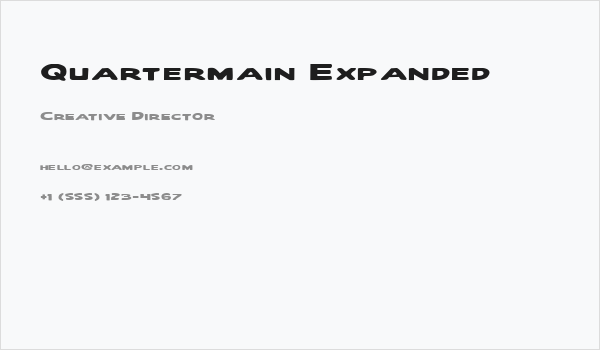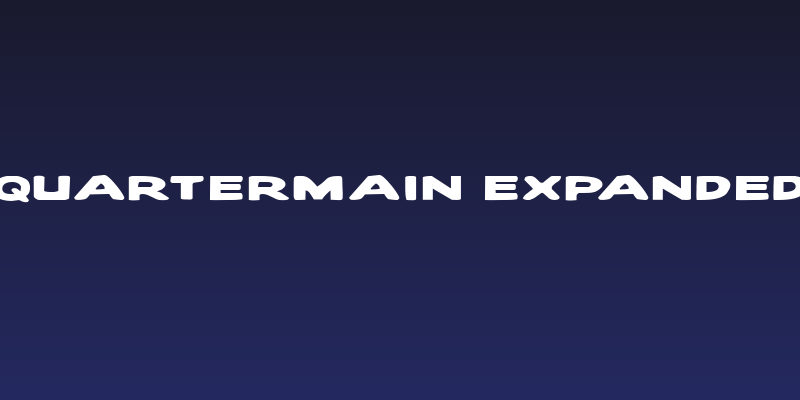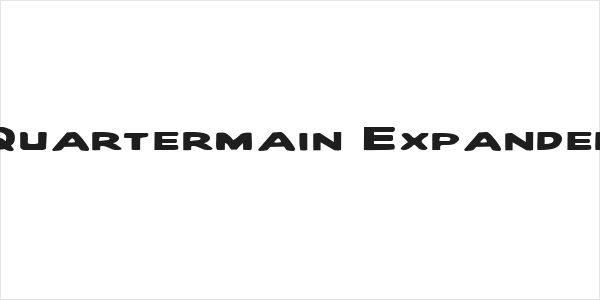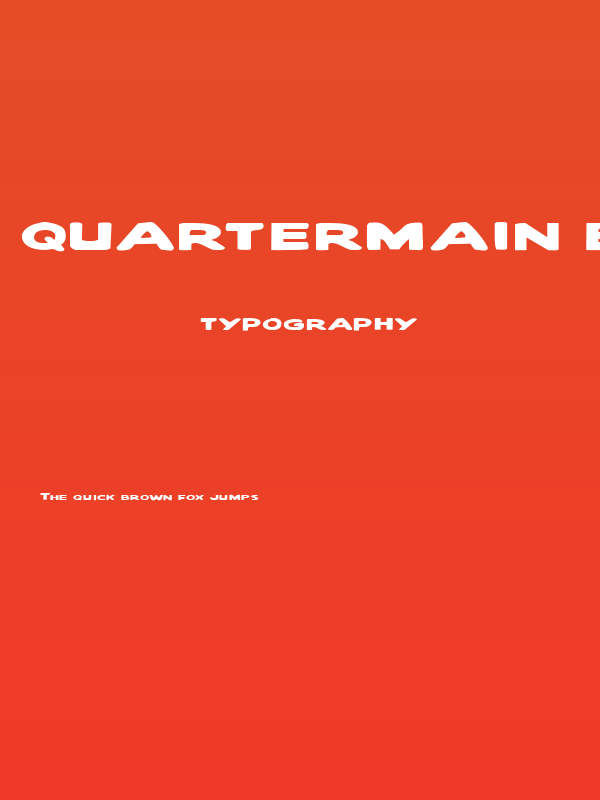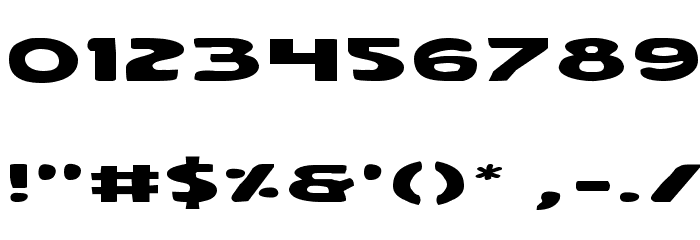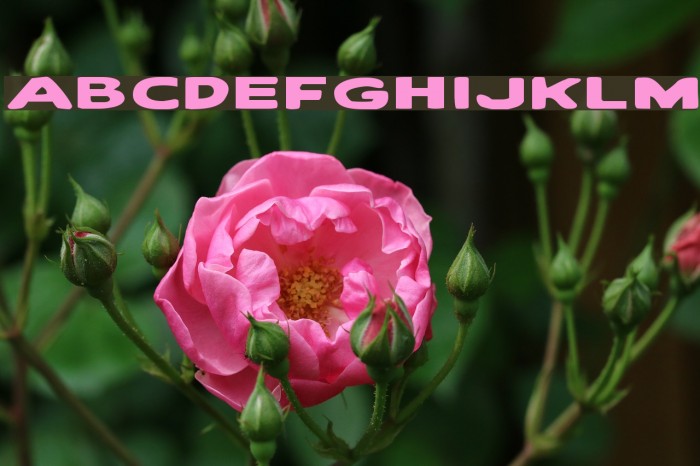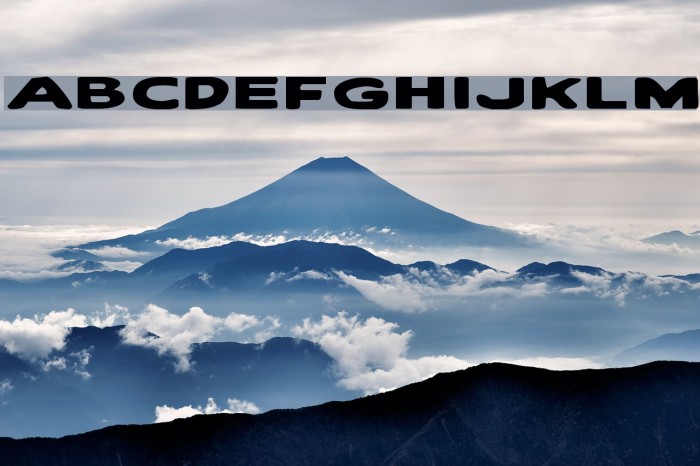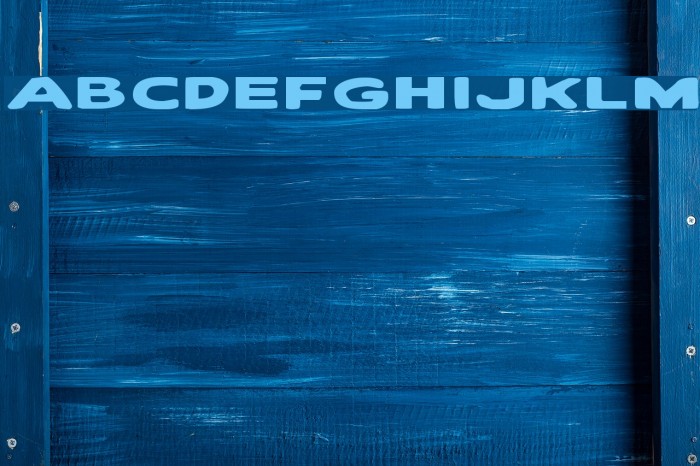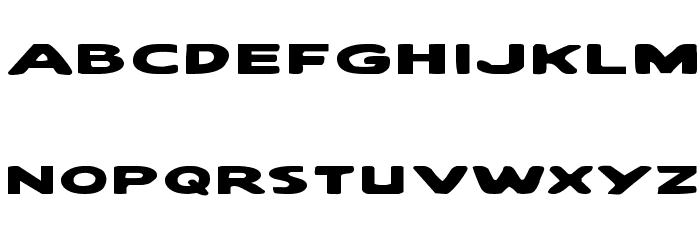
Quartermain Expanded Font
Quartermain Expanded Description
This font features a bold and expanded style with a modern flair. The characters are robust and have a strong presence, making them ideal for attention-grabbing designs. The uppercase and lowercase letters maintain a consistent weight, providing a uniform appearance. The numbers and special characters are designed to match the boldness of the alphabet, ensuring a cohesive look across all text elements. The font's expanded width gives it a distinctive look, suitable for projects that require a strong visual impact.
| Proposed Projects | Ideal for headlines, posters, branding, and any design requiring a bold statement. |